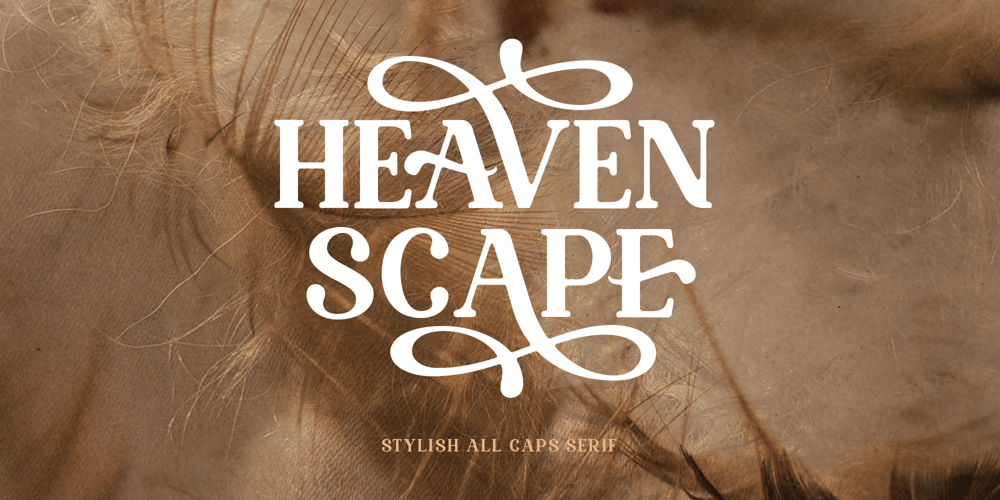
Heaven Scape Font Family was designed by Sarid Ezra, Dzikrul Aulia and published by Bale Type. Heaven Scape contains 2 styles and family package options. Heaven Scape is a classy, elegant and stylish all caps serif with a variety of alternates each character, making your presentations and logos even more attractive and eye-catching. This fascinating font can be used for many purposes, including: Magazines, branding, posters and even wedding invitations. With bold and rounded shape, this font will make your design more stand out. Heaven Scape also supports multiple languages.